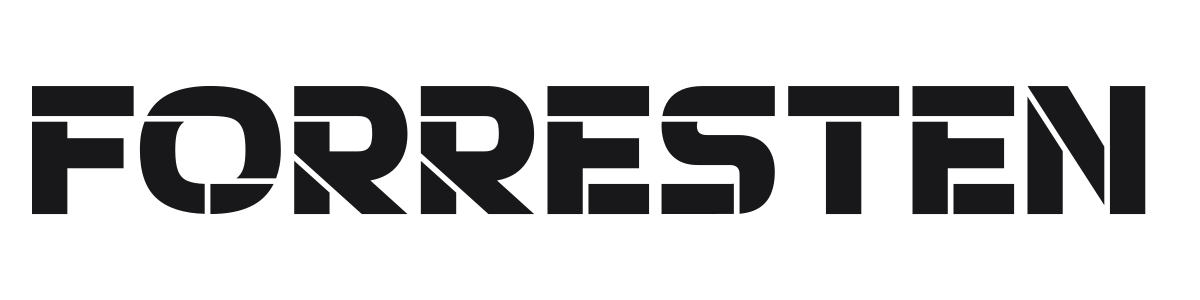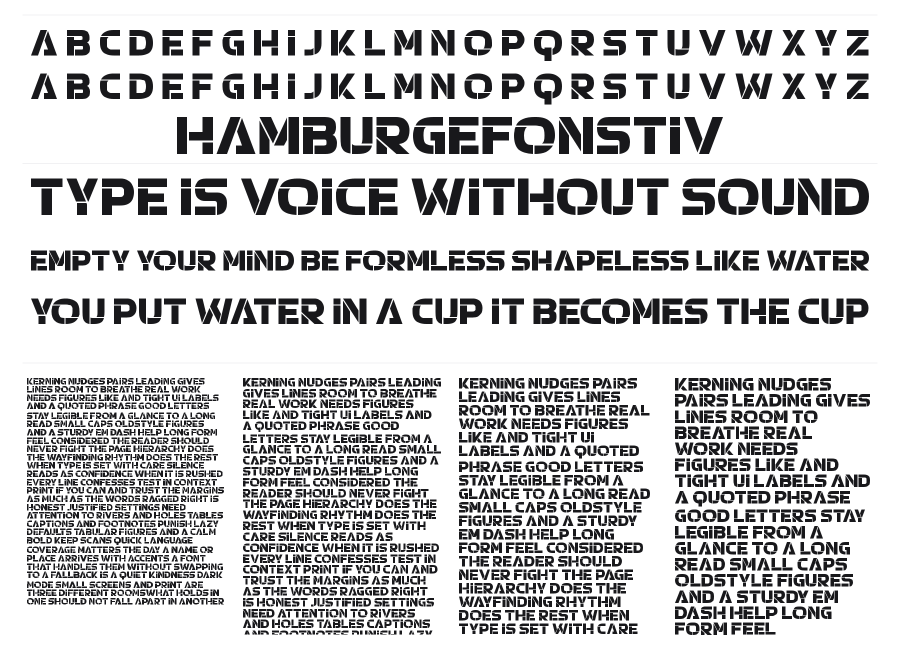
Forresten
Forresten is a bold stencil display font with horizontal cuts breaking through each letterform in a way that reads as both military and futuristic. The blocky, near-monoweight construction and dense spacing give it a heavy, imposing presence on any surface. It sits naturally in gaming titles, action branding, and tech-forward design.